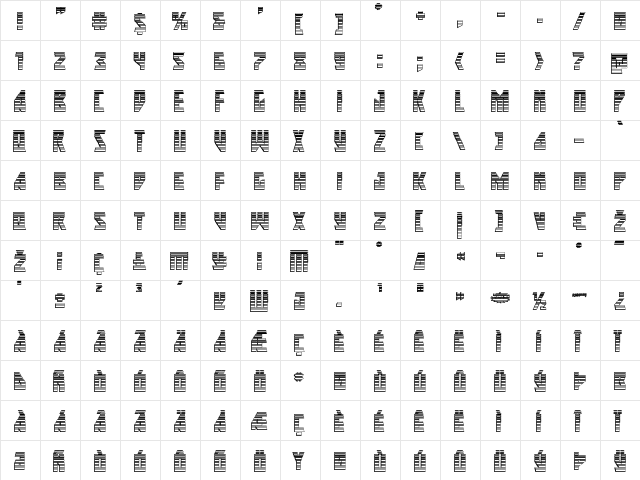
Major Force Chrome Regular
Design Context for Major Force Chrome Typeface
Major Force Chrome has the bold swagger of sports branding: strong, assertive letterforms designed to dominate headlines and jerseys alike.
A natural choice for gym brands, fantasy sports, jersey lettering, and action-driven headlines.
Font Pairing: Use alongside a condensed or geometric sans for supporting copy — keep the pairing bold, functional, and free of ornament.
Pro Tip: Use Major Force Chrome in all-caps headlines where its athletic energy can fully express itself. Pair with a solid, simple sans for supporting text.